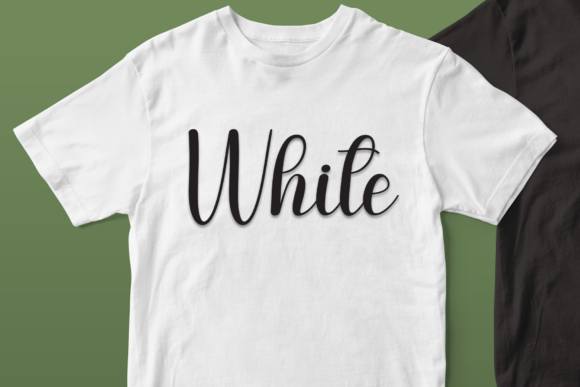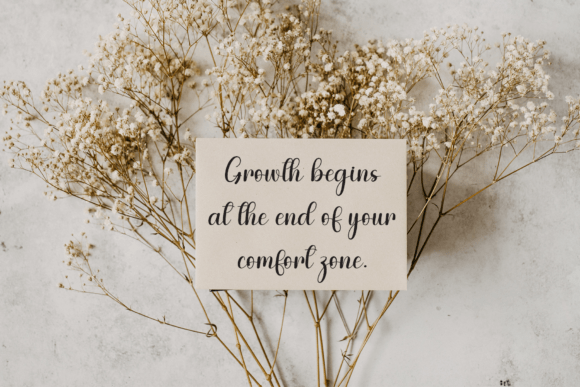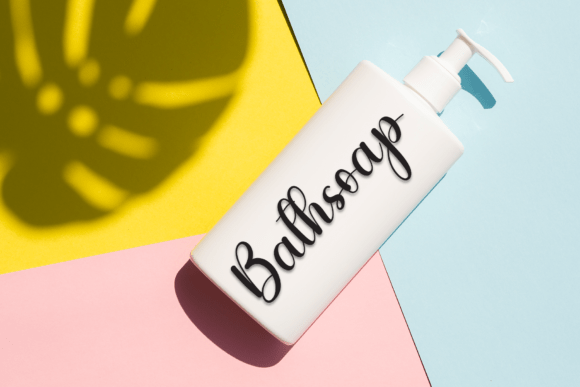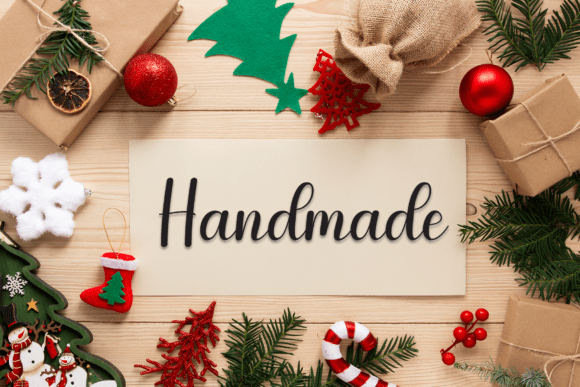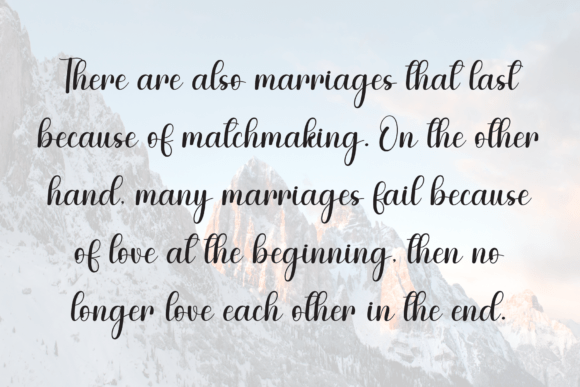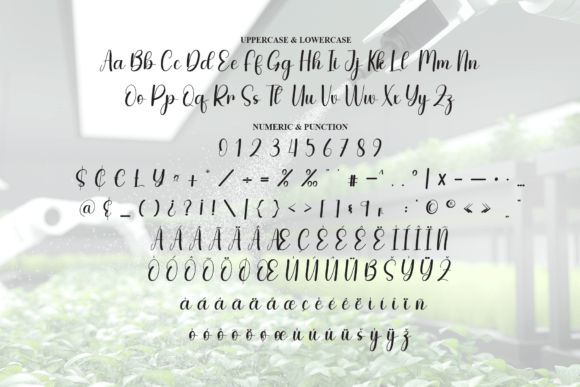
Introducing Autogrow Font: Elevate Your Designs with Fresh Elegance
Are you looking for a font that embodies the essence of renewal and sophistication? Look no further than Autogrow, a stunning handwritten script font that exudes fresh elegance and delicate charm. With its flowing strokes and graceful curves, Autogrow is the perfect addition to any design project, from invitations and branding to seasonal designs and more.
The Characteristics of Autogrow Font
Autogrow is a carefully crafted font that boasts a range of distinctive features, making it an excellent choice for designers and crafters. Some of its key characteristics include:
- Flowing strokes: Autogrow’s fluid strokes create a sense of movement and energy, adding a dynamic touch to any design.
- Graceful curves: The font’s elegant curves evoke a sense of sophistication and refinement, perfect for high-end branding and luxury designs.
- Handwritten charm: Autogrow’s handwritten feel adds a personal touch to any project, making it ideal for invitations, greeting cards, and other applications where a human touch is desired.
- Renewal-inspired: The font’s fresh and delicate charm makes it perfect for seasonal designs, particularly those related to spring and summer.
Uses for Autogrow Font
Autogrow’s versatility makes it an excellent choice for a wide range of design applications, including:
- Invitations: Whether you’re designing wedding invitations, baby shower invites, or graduation announcements, Autogrow adds a touch of elegance and sophistication.
- Branding: Use Autogrow to create a luxurious and refined brand identity that sets your business apart from the competition.
- Seasonal designs: From Easter egg designs to summer-themed packaging, Autogrow’s fresh charm is perfect for seasonal projects.
- Stationery: Add a personal touch to your stationery, including greeting cards, thank-you notes, and journals.
Benefits of Using Autogrow Font
By incorporating Autogrow into your design projects, you’ll enjoy a range of benefits, including:
- Unique and distinctive: Autogrow’s elegant and refined design ensures that your projects stand out from the crowd.
- Easy to read: Despite its ornate feel, Autogrow remains highly legible, making it perfect for body text and headlines.
- Customizable: With its range of weights and styles, Autogrow can be tailored to suit your specific design needs.
- Time-saving: Autogrow’s versatility means you can use it across multiple projects, saving you time and effort in the long run.
Tips for Using Autogrow Font Effectively
To get the most out of Autogrow, follow these expert tips:
- Pair with contrasting fonts: Combine Autogrow with bold, sans-serif fonts to create striking contrast and visual interest.
- Experiment with colors: Autogrow looks stunning in a range of colors, from soft pastels to rich jewel tones.
- Pay attention to spacing: Ensure that your text has sufficient spacing to allow Autogrow’s elegant strokes to shine.
- Use it sparingly: While Autogrow is a beautiful font, it’s best used in moderation to avoid overwhelming your design.
Autogrow font is a stunning addition to any design project, offering a unique blend of elegance, charm, and sophistication. With its flowing strokes, graceful curves, and handwritten feel, Autogrow is perfect for designers and crafters looking to add a touch of refinement to their work. Whether you’re creating invitations, branding, or seasonal designs, Autogrow is sure to elevate your projects and leave a lasting impression.